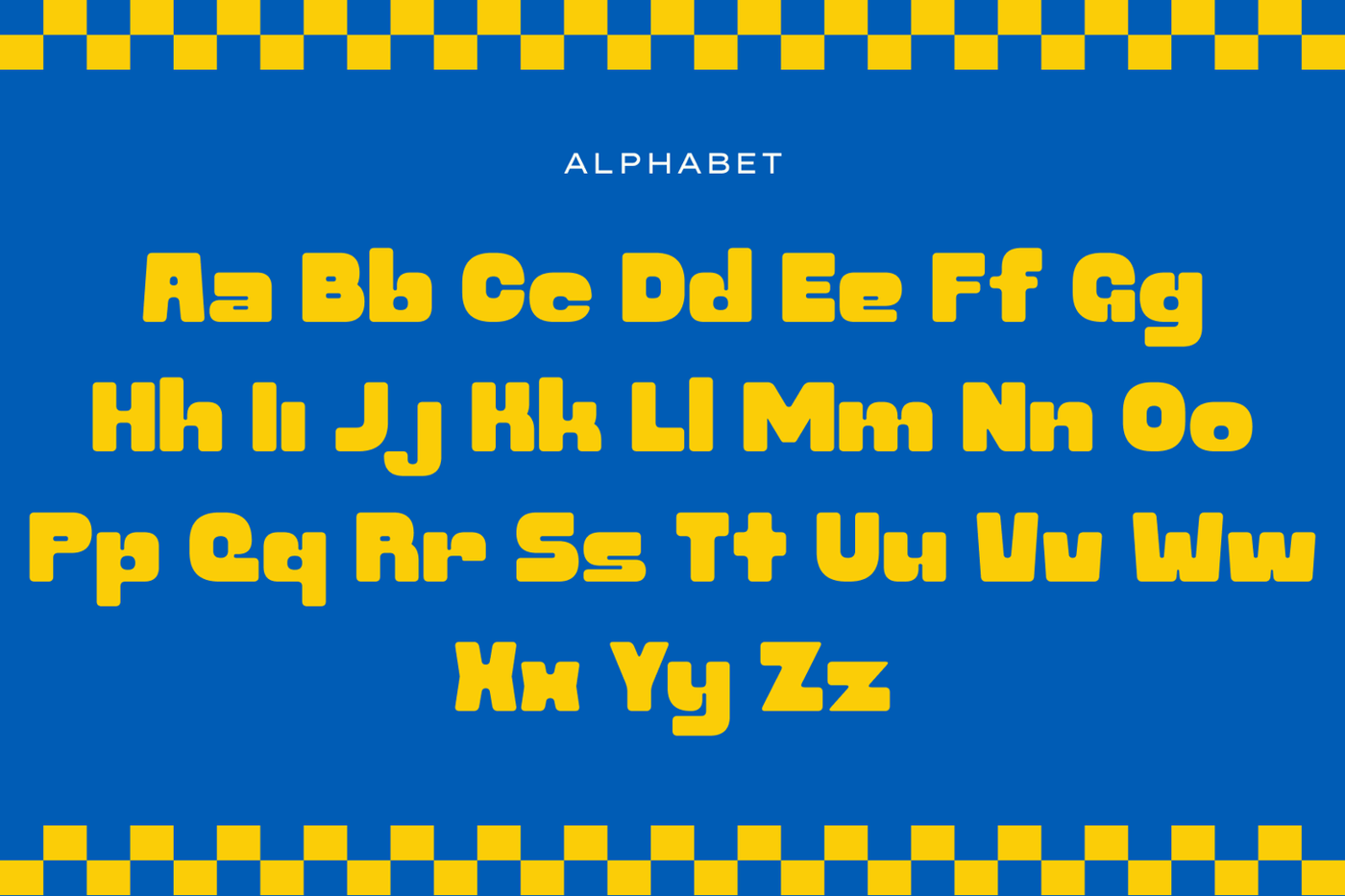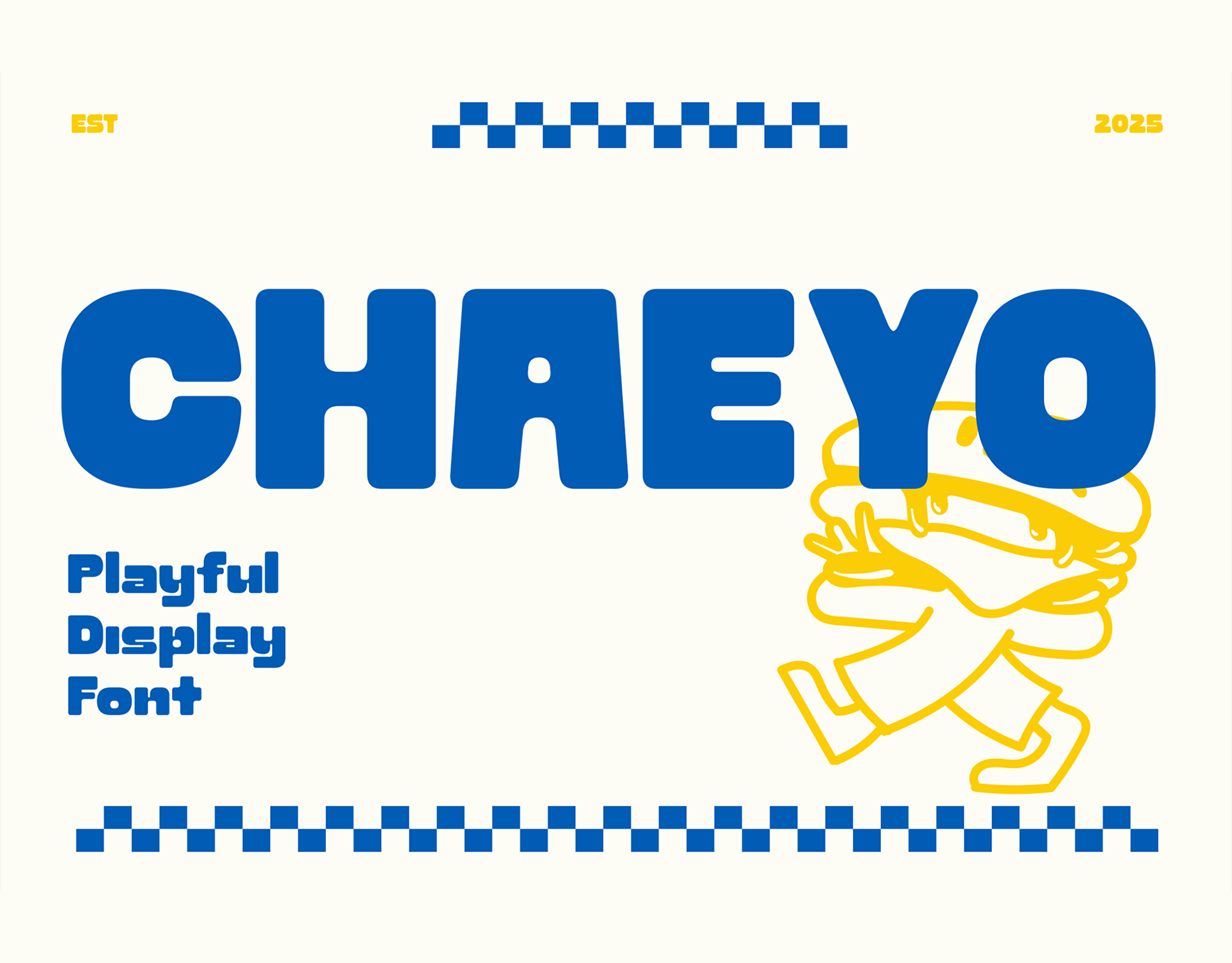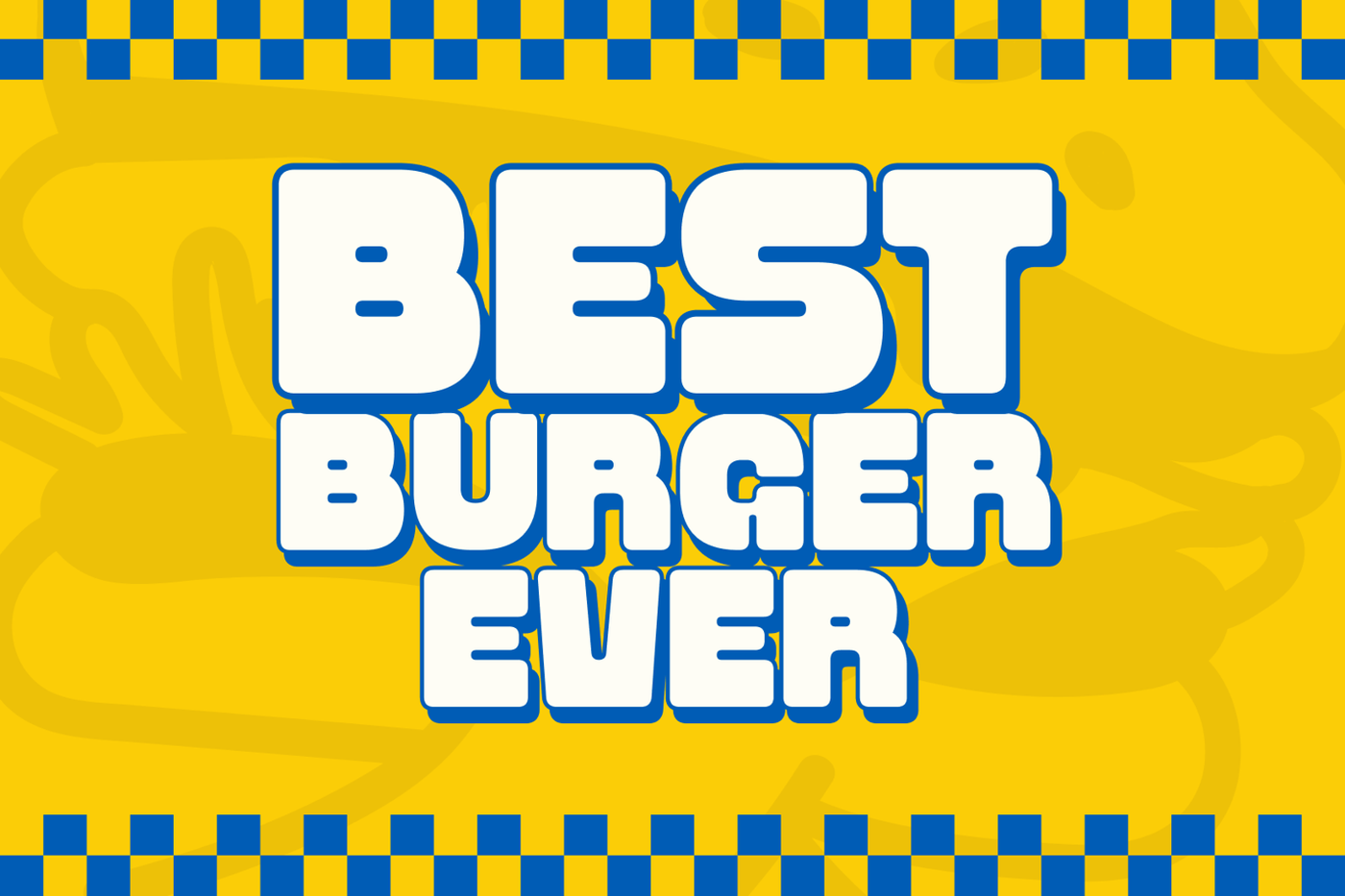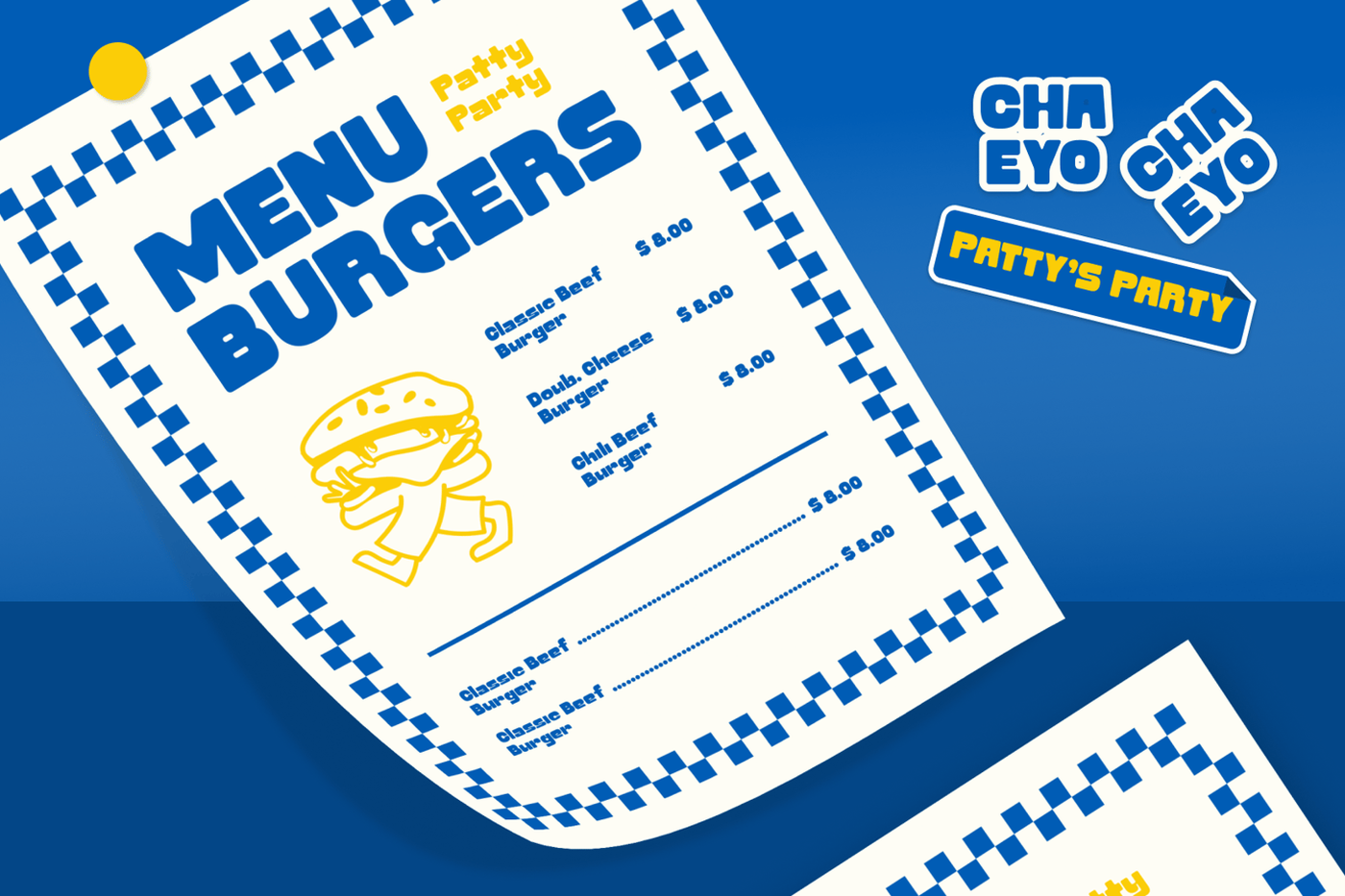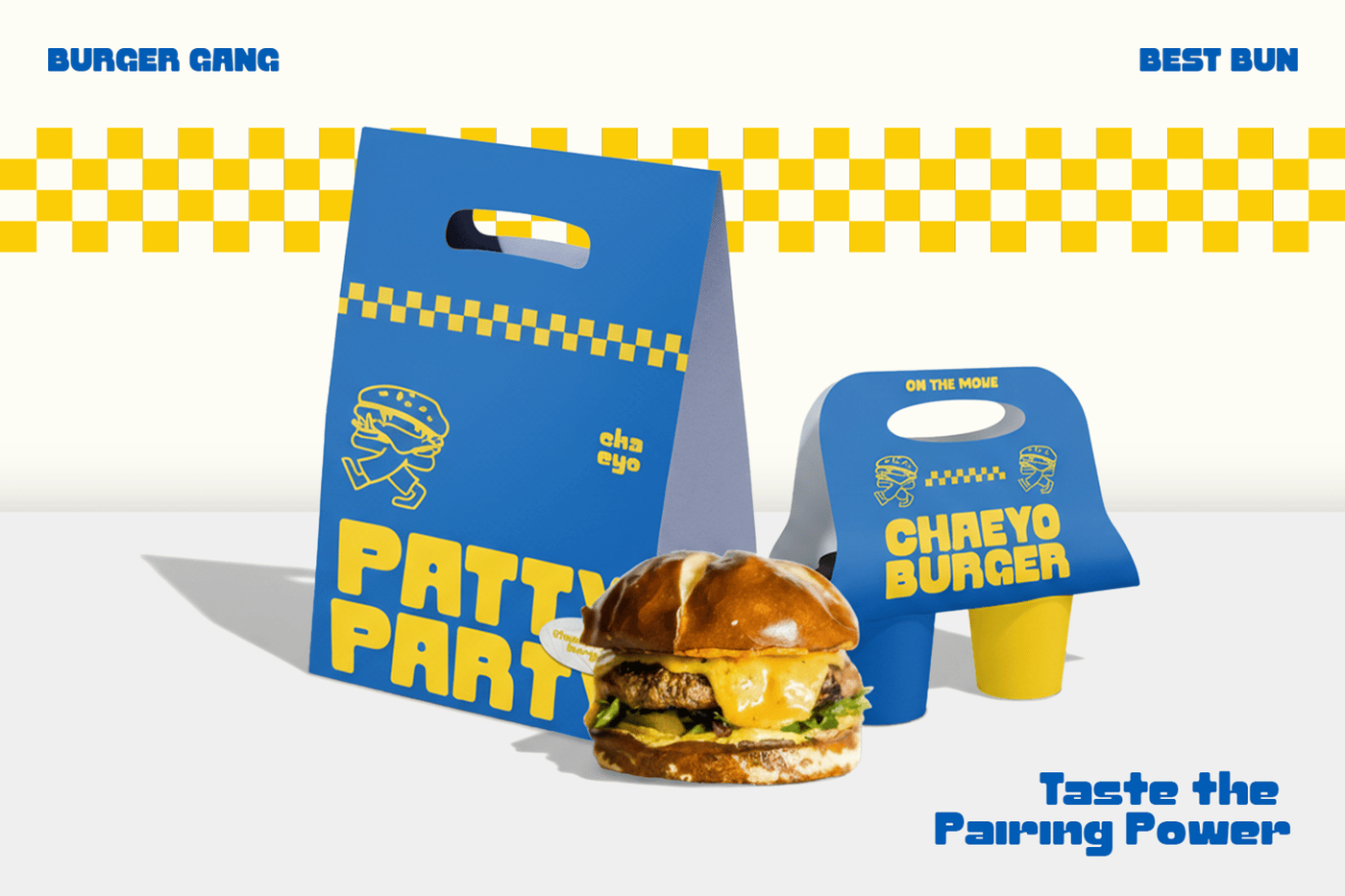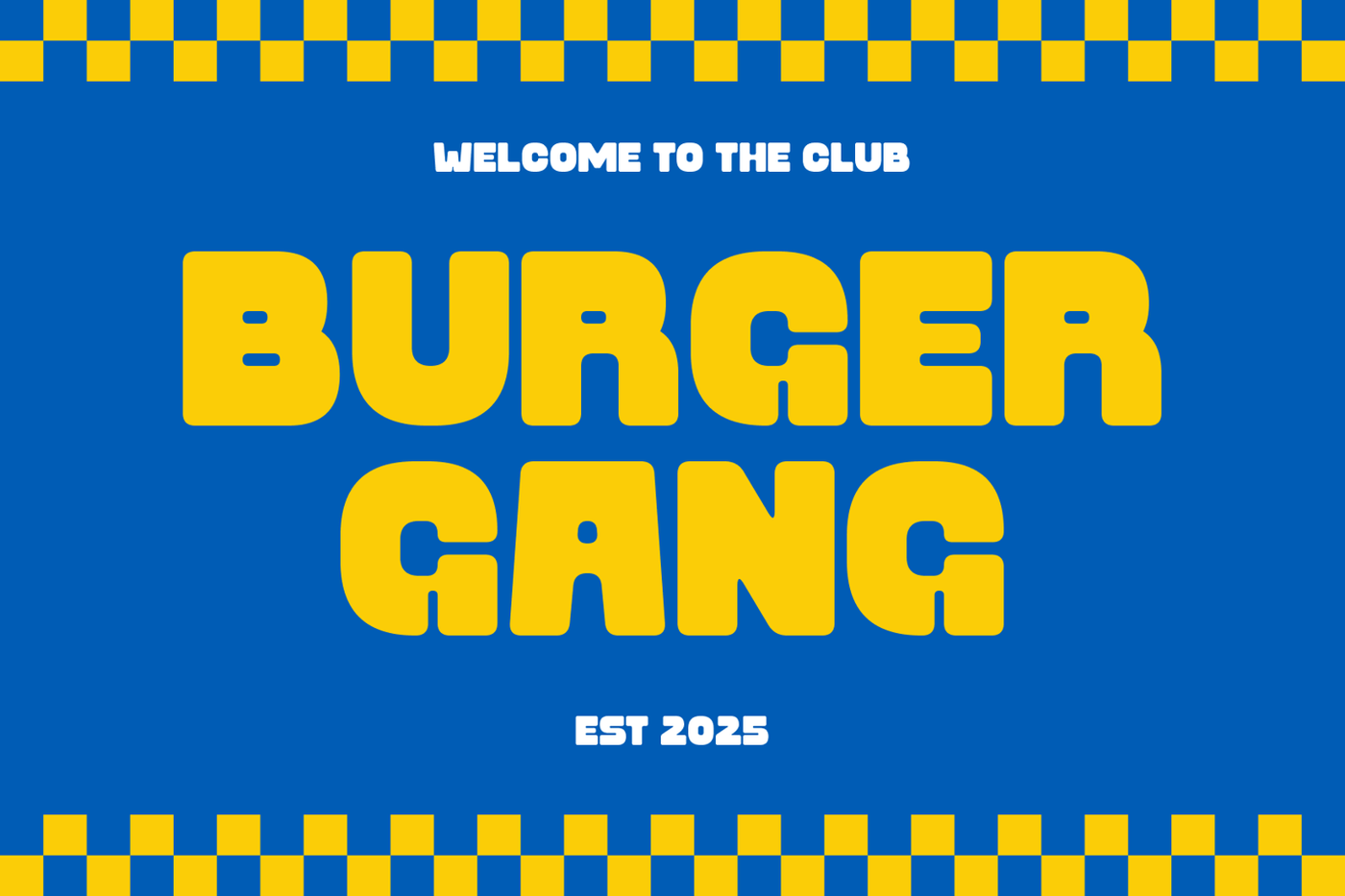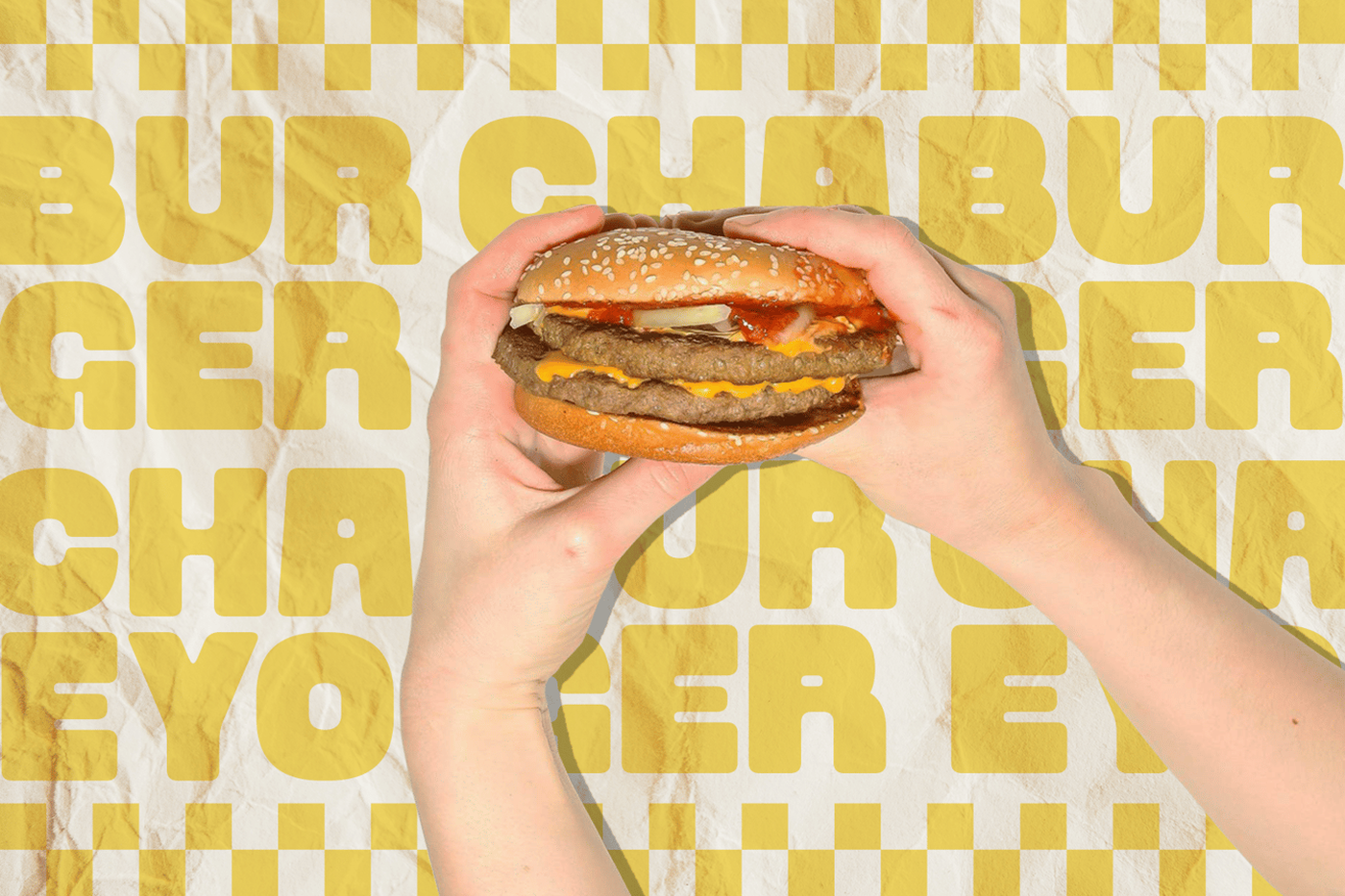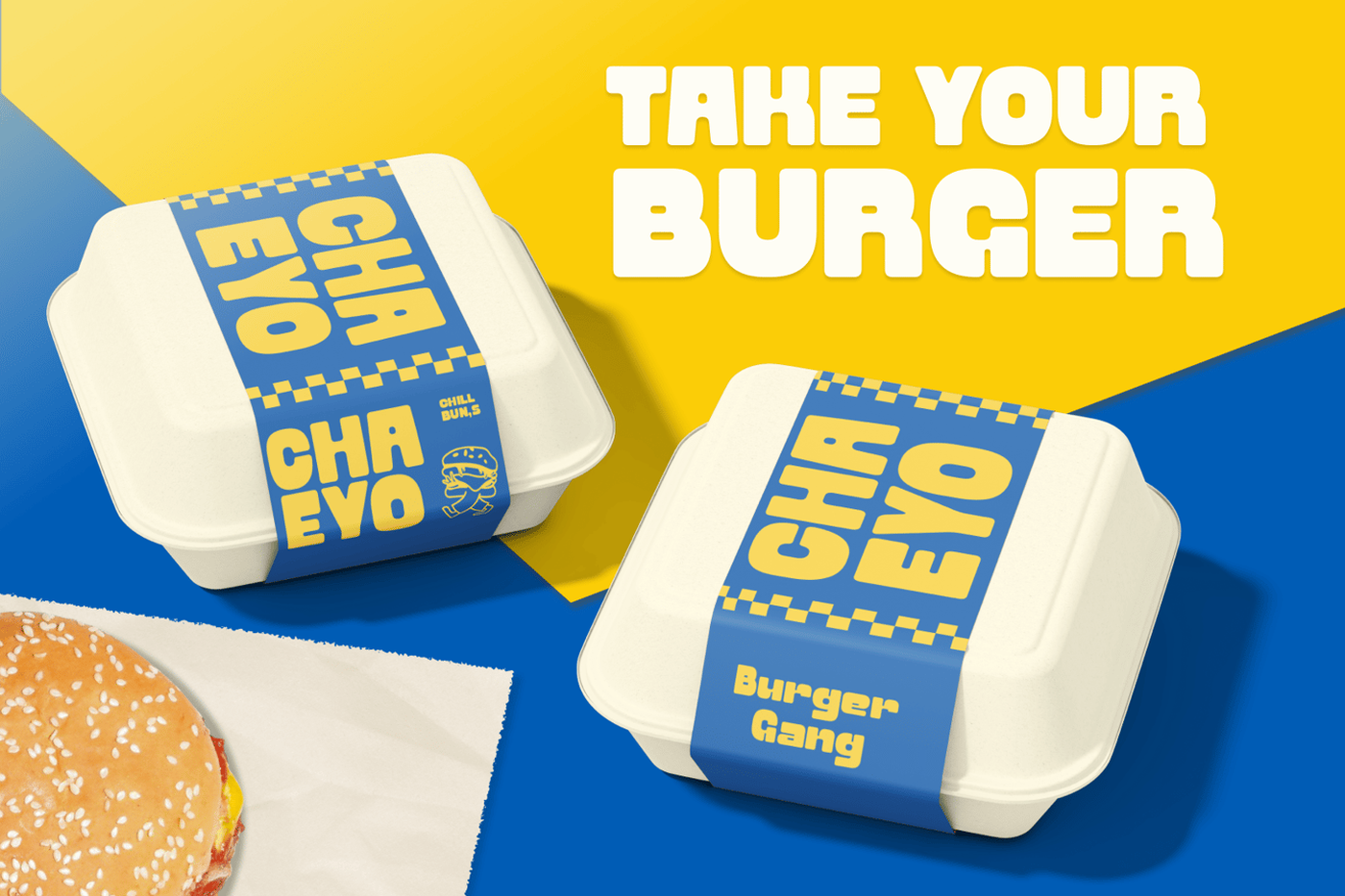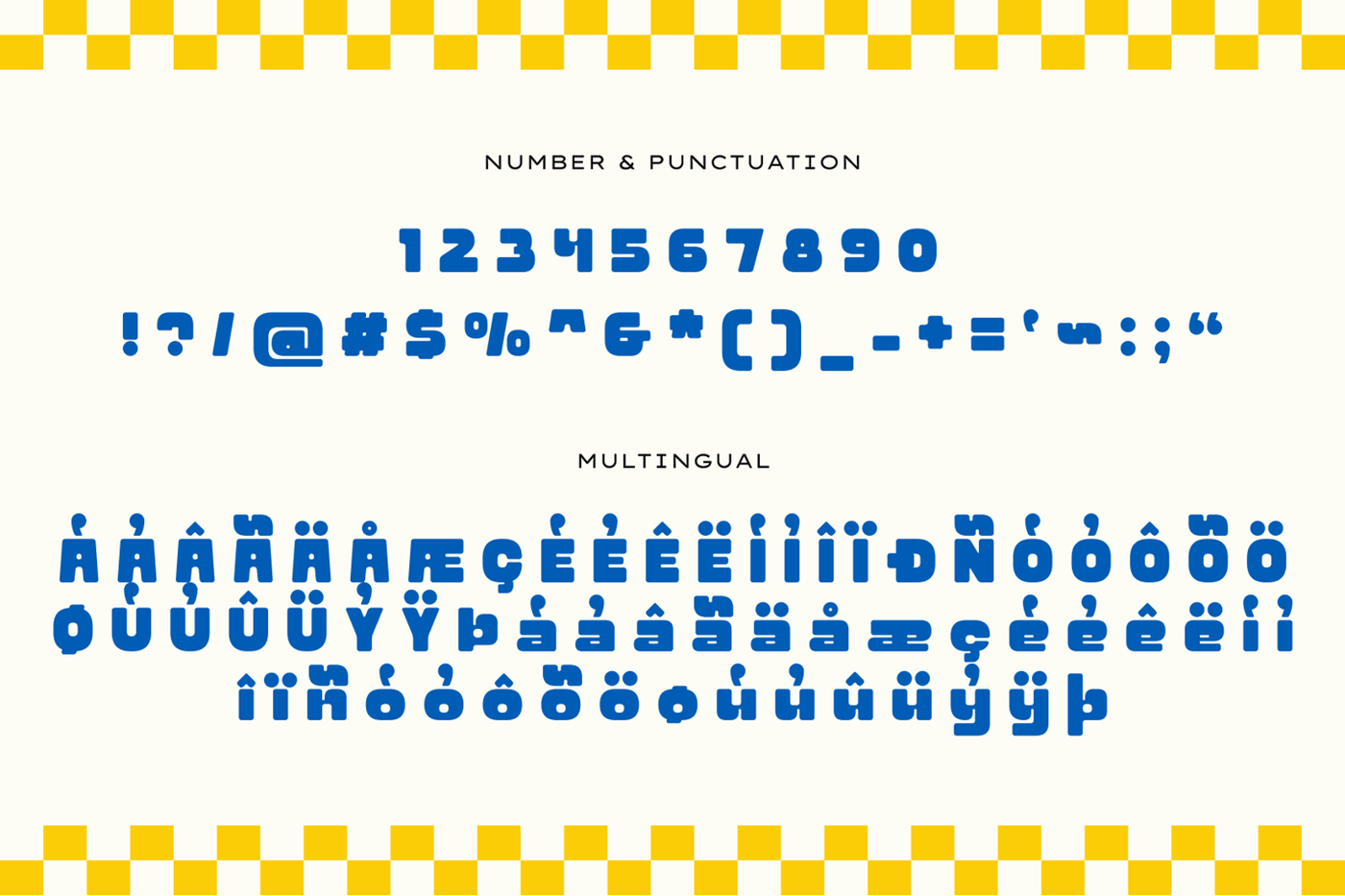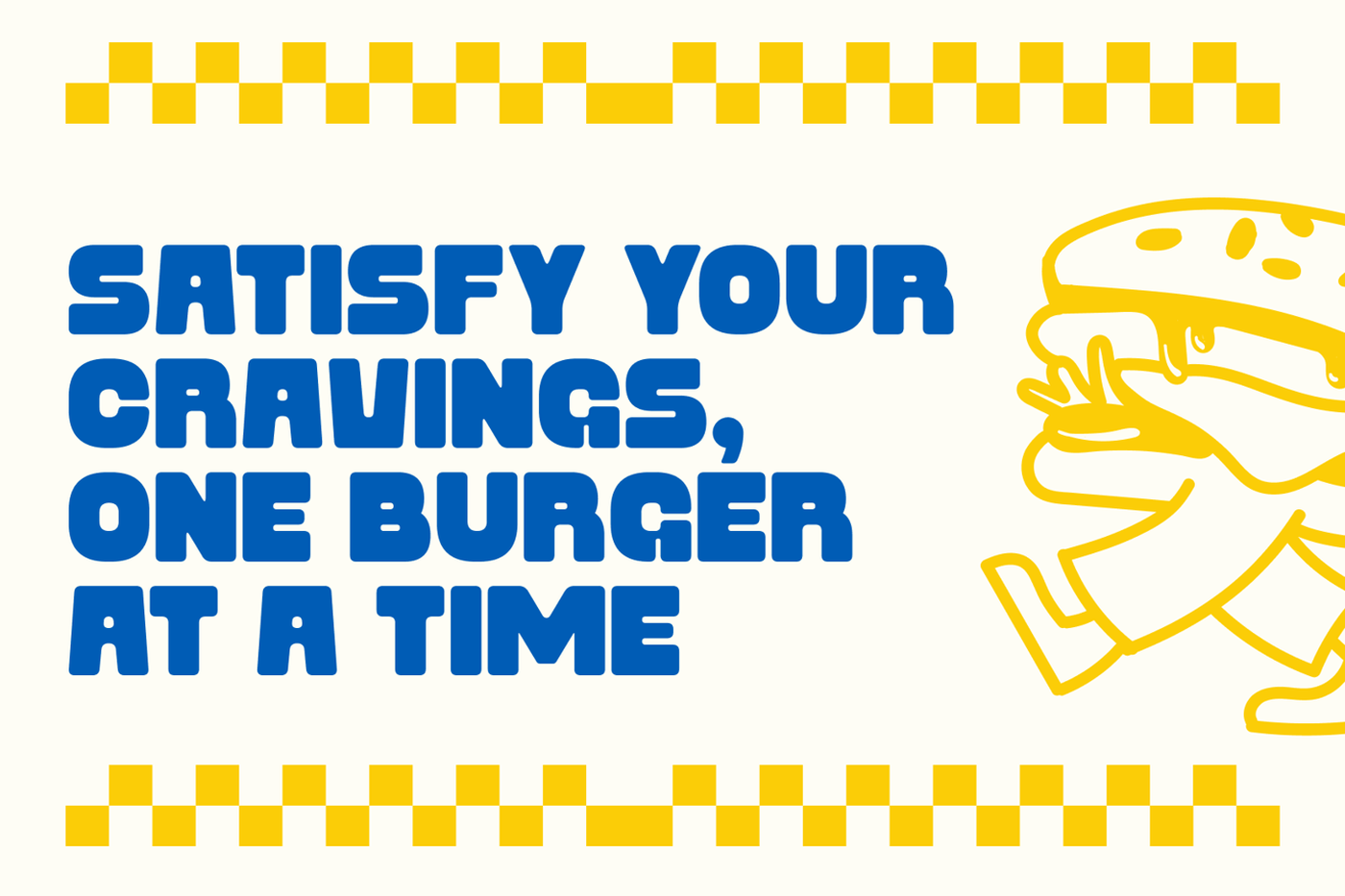
Chaeyo - Playful Display Font
Chaeyo is a bold, friendly display sans with soft curves, open counters, and a high x-height that keeps titles punchy and readable. Its clean strokes and rounded rhythm give it a cheerful, approachable voice—perfect for menus, kids’ posters, and playful brand headers that need instant clarity without losing character. Beyond the basics, Chaeyo ships with full numbers, punctuation, and multilingual support, so your layouts stay consistent across platforms and languages. It scales beautifully from social cards to signage, making quick mockups feel polished and production‑ready without extra fuss.
Font: Chaeyo